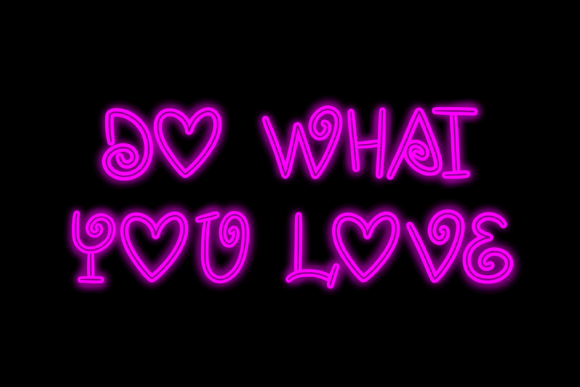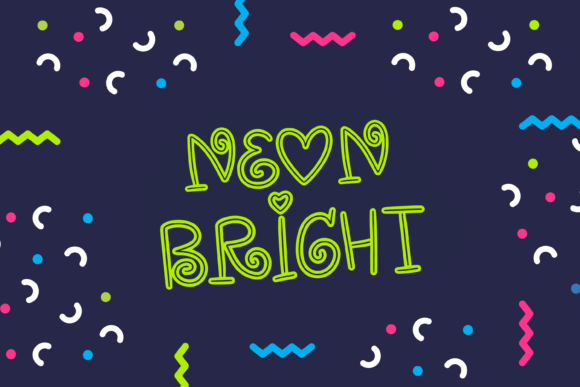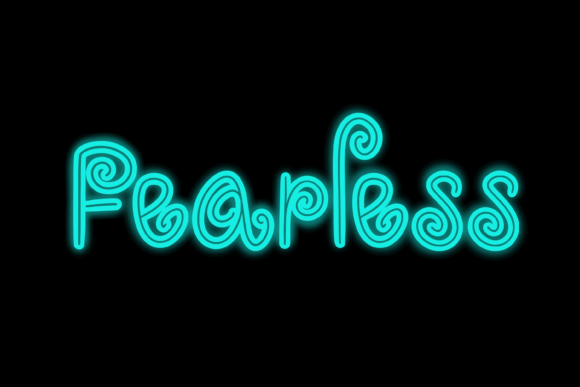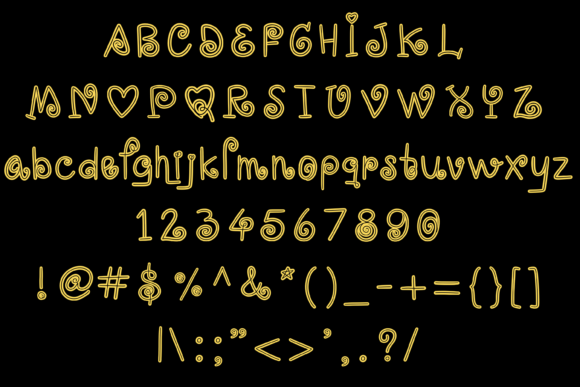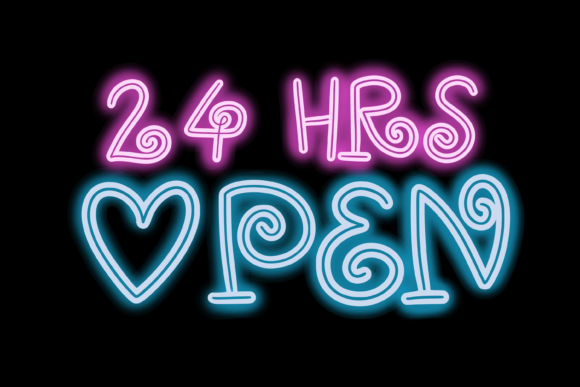
Introduction to Neon Lolly Font
Neon Lolly Font is a display font in neon style.
It is perfect for webs or party decorations It’s a fun font that can make your work look fun and happy.